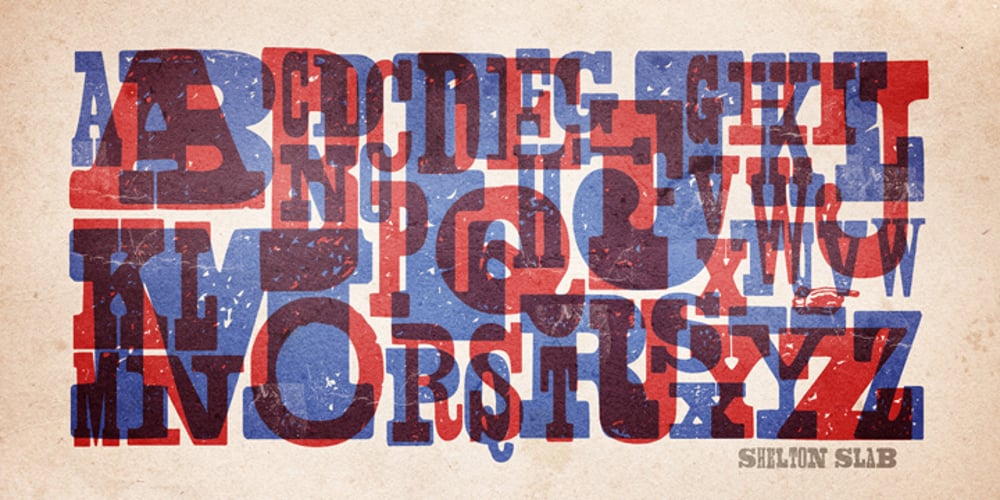
Shelton Slab Font Family was designed by Hannes von Döhren and published by HVD Fonts. Shelton Slab contains 1 styles and family package options. Shelton Slab is a Typeface with an eroded, printed look. The letters seem to be from different alphabets to support the wood type feeling. Every letter has an alternate character. Shelton Slab has an extended character set to support Central and Eastern European languages and also contains arrows and other special glyphs available through the OpenType contextual alternates feature.